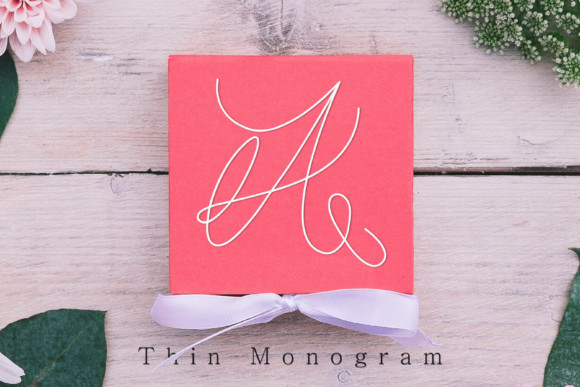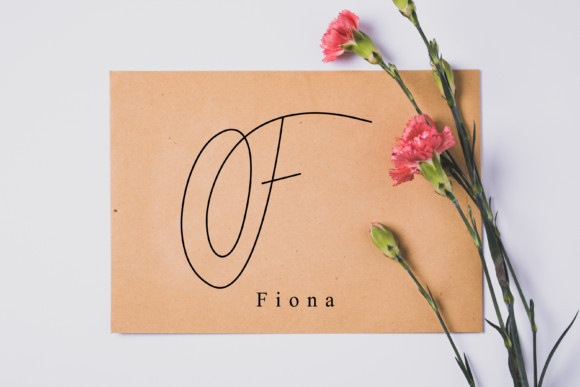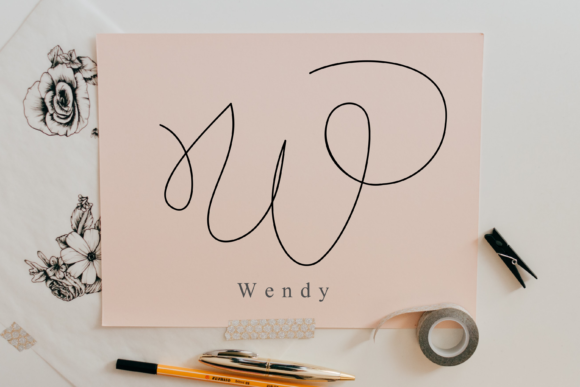
Thin Monogram Font
Thin Monogram is an elegant and dainty handwritten font that features sweet swashes. This original look will appeal to a wide range of crafty ideas, from letterheads and titles, to stationery.